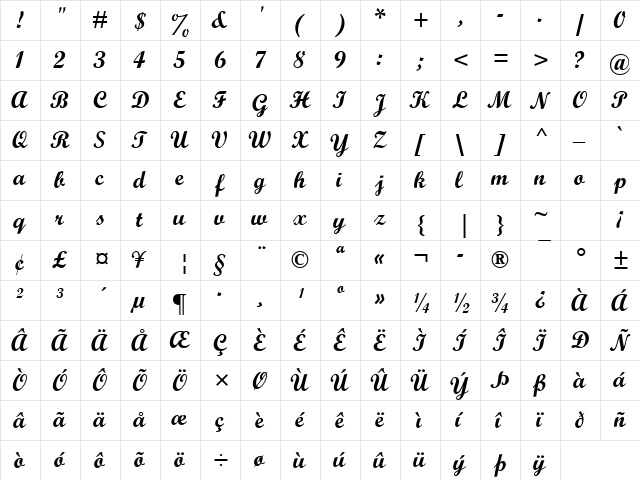
Script Bold MT Regular Font Preview
| Foundry | Agfa Monotype Corporation |
Design Context for Script Bold MT Typeface
Script Bold MT brings a calligraphic fluidity to the page — its connecting strokes and expressive curves give it an unmistakably human quality. The heavy weight commands attention and anchors typographic hierarchies.
Font Pairing: Combine Script Bold MT with a simple geometric sans for maximum contrast — the tension between flowing curves and clean structure is a classic typographic pairing.
Pro Tip: Pair Script Bold MT with a clean sans-serif for supporting text. The contrast between fluid script and geometric structure creates an elegant typographic hierarchy.